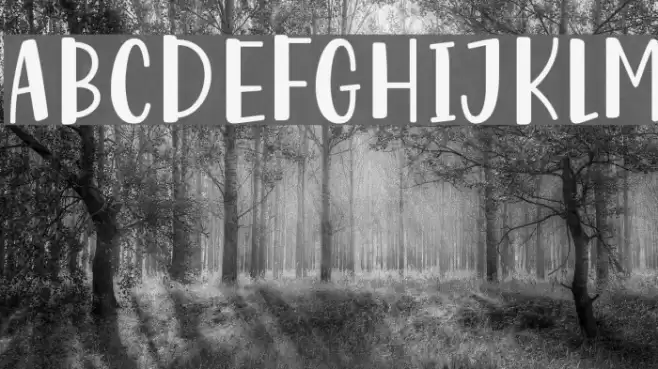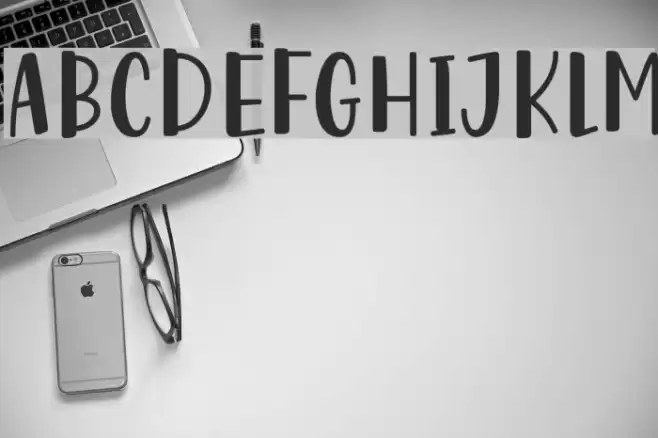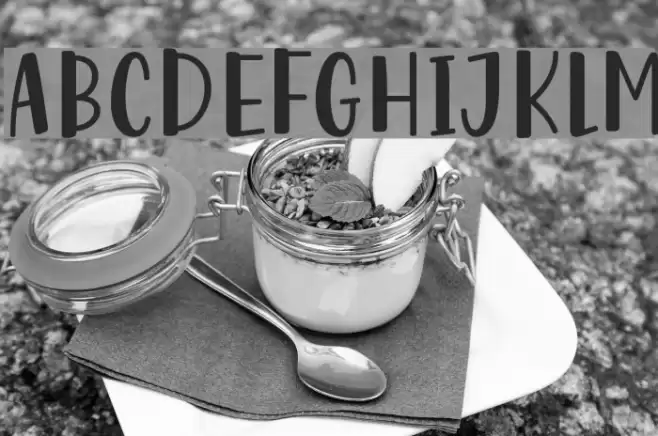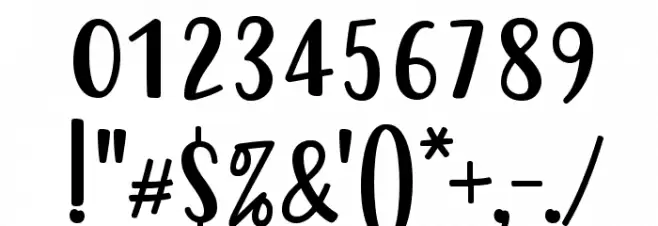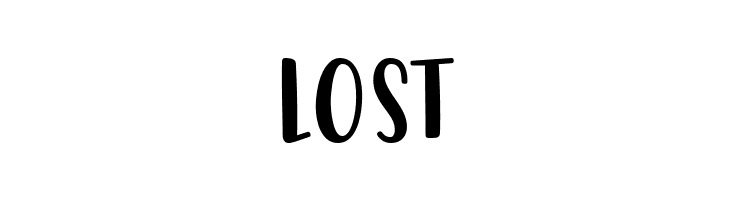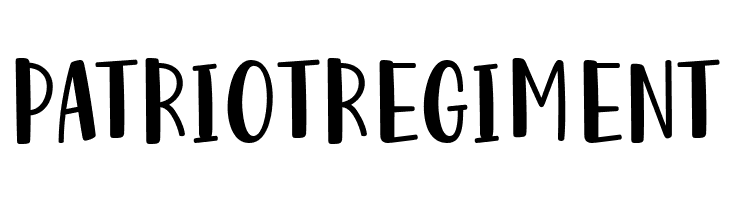
Cute Be Special Font
Cute Be Special Description
This playful and whimsical font features a hand-drawn aesthetic with a casual, friendly vibe. The letters are slightly irregular, adding a charming, informal touch. The uppercase letters are bold and rounded, while the lowercase letters maintain a consistent style with a slightly narrower form. Numbers and special characters follow the same playful design, making the font versatile for various uses. The overall appearance is lively and engaging, perfect for projects that require a fun and approachable look.
A playful, hand-drawn font with a whimsical and friendly style from Uncategorized fonts.
- Proposed Projects: Ideal for children's books, greeting cards, playful branding, and social media graphics.
- Use Case: Headlines, Logos, Social media graphics